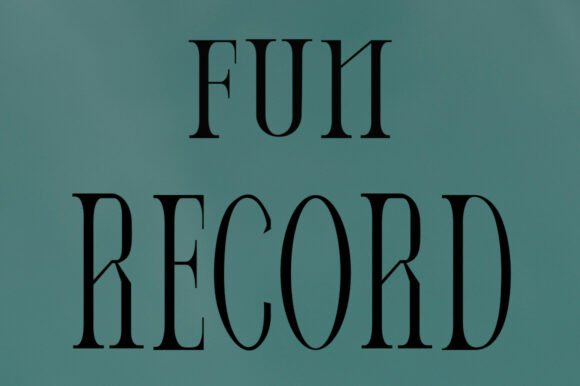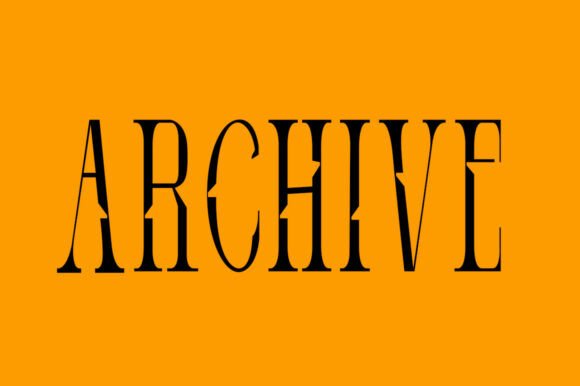
The Timeless Elegance of Classic Design
Remember the moment when you stumbled upon the perfect font for your brand’s logo, and everything just fell into place? For designers, that ‘aha’ moment is often the result of years of experimenting with different styles and techniques. One font that never fails to evoke a sense of classic sophistication is the CLASSIC Font. Its elegant, timeless feel makes it an ideal choice for premium design needs.
With its bold letter details and smooth serif curves, CLASSIC Font presents a classic feel that’s both traditional and modern. Its neat and proportional characters make it perfect for use in logos, luxury branding, editorials, invitations, and headlines that want to appear exclusive and professional. Whether you’re looking to create a vintage-inspired design or a sleek, modern look, CLASSIC Font is a valuable addition to any designer’s toolkit.
Key Features of Classic Font
- Unique Characteristics: Classic Font features a traditional, serif design with a warm and elegant feel, making it suitable for printing and digital applications
Designer Review: Classic Font
As a designer, I’ve had the chance to work with the Classic Font on various projects, and I must say it’s a mixed bag. Here’s my honest review.
What works well: ✨ Classic Font has a timeless appeal that never goes out of style. It’s a safe choice for traditional industries like finance, law, and healthcare, where a sense of professionalism is crucial. The font’s serif design lends itself well to body text, making it easy to read and understand.
The font also has a wide range of weights and styles, which makes it versatile and suitable for various design applications. From headings to captions, Classic Font can be used to create a cohesive look.
Limitations: ⚠️ One of the major drawbacks of Classic Font is its lack of creativity. It’s a very common font, and using it may give your design a generic feel. Additionally, the font may not be the best choice for modern or tech-related industries, where a more innovative and playful approach is often preferred.
Overall, I’d give Classic Font 3.5 out of 5 stars. While it’s a solid choice for traditional industries, it may not be the best fit for more creative or innovative projects.
Here are some key points to consider:
- Timeless appeal and professional feel
- Wide range of weights and styles
- Lack of creativity and originality
- May not be suitable for modern or tech-related industries
Tips for Getting the Most Out of Classic Font
Some tips to get the most out of Classic Font include:
– Using it for formal or traditional designs
– Pairing it with other classic fonts for a cohesive look
– Experimenting with different font sizes and styles to achieve the desired effect
– Using it in combination with other design elements, such as images and graphics, to create a visually appealing design
Some common use cases for Classic Font include:
– Business cards and letterheads
– Menus and brochures
– Wedding invitations and stationery
– Historical or vintage-themed designs